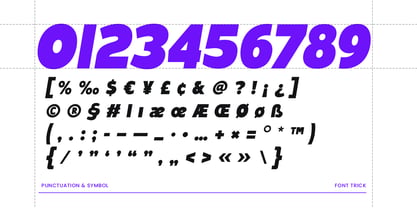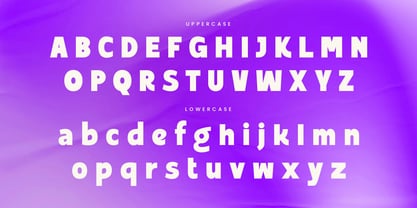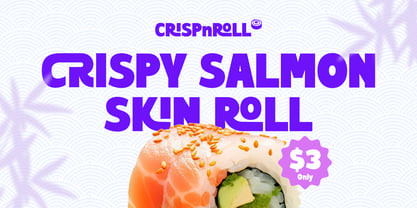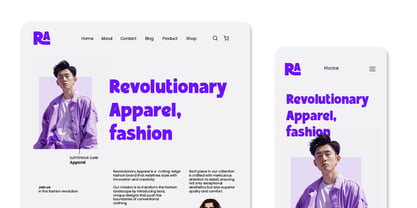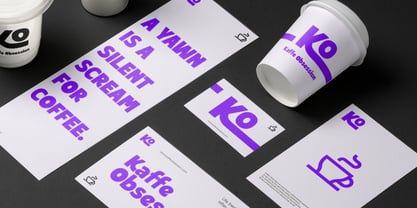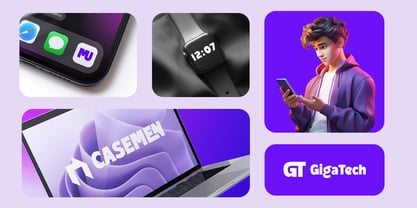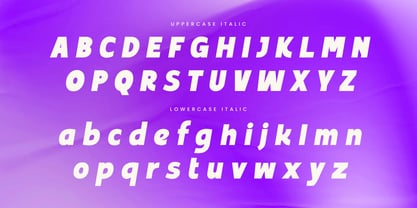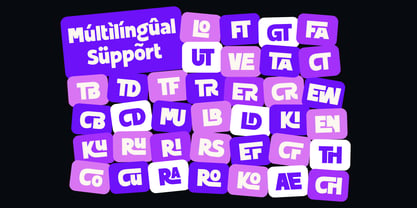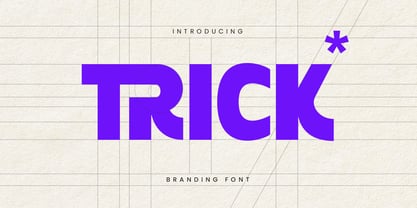
Trick SS
The Trick SS Font Family was designed by Zamroni Hamzah and published by Sensatype Studio. Trick SS contains 2 styles and family package options. More about this family
TRICK SS is a unique logo font designed to make your brand stand out. Inspired by modern design trends, TRICK SS combines stylish elements with a creative flair, ensuring your branding is memorable and distinct. Its versatile nature makes it perfect for a wide range of applications, from logos and business cards to product packaging and digital media. TRICK SS features clean lines and bold shapes, adding a professional and innovative touch to your projects. Whether you’re rebranding a company or launching a new product, TRICK SS provides the unique identity your brand needs to leave a lasting impression.
TRICK SS Branding Font Features:
• Uppercase and Lowercase
• Punctuation, Number, and Symbol
• Multilingual Support
• Opentype Features
Elevate your branding with TRICK SS, the unique logo font that ensures your brand stands o